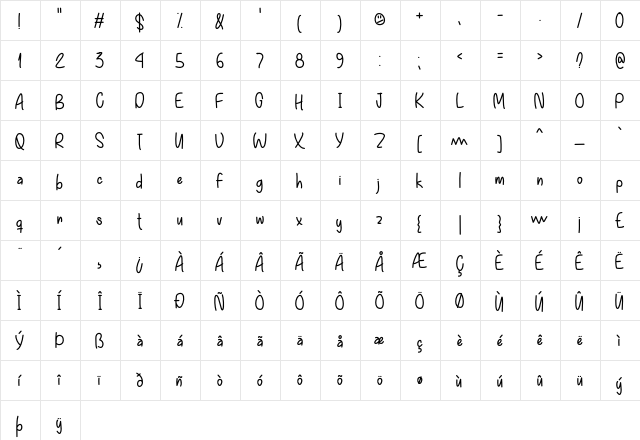
Everything You Want Regular
| Foundry | Misti's Fonts |
| Designer | Misti's Fonts |
Design Context for Everything You Want Typeface
Everything You Want takes a measured approach to typography — its balanced proportions and neutral character make it a reliable workhorse for both digital and print work. The delicate stroke weight brings airiness and refinement to layouts.